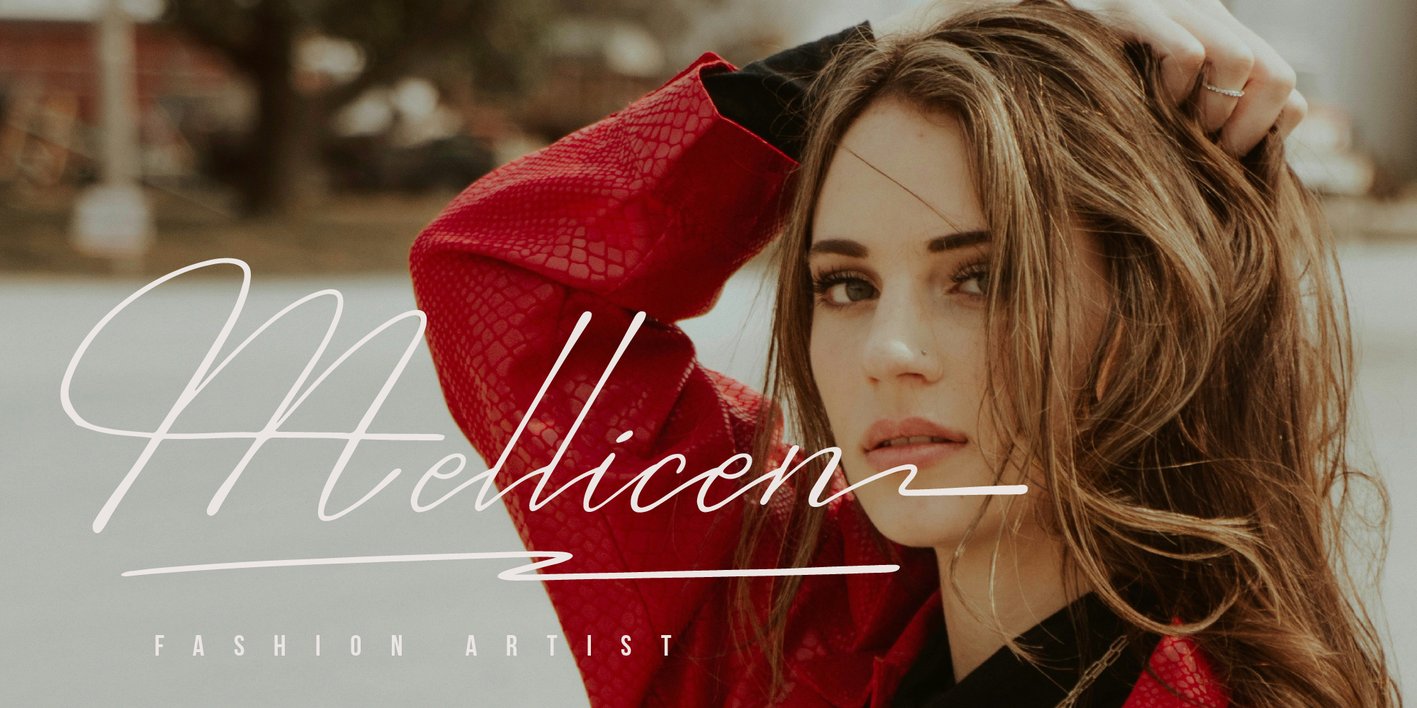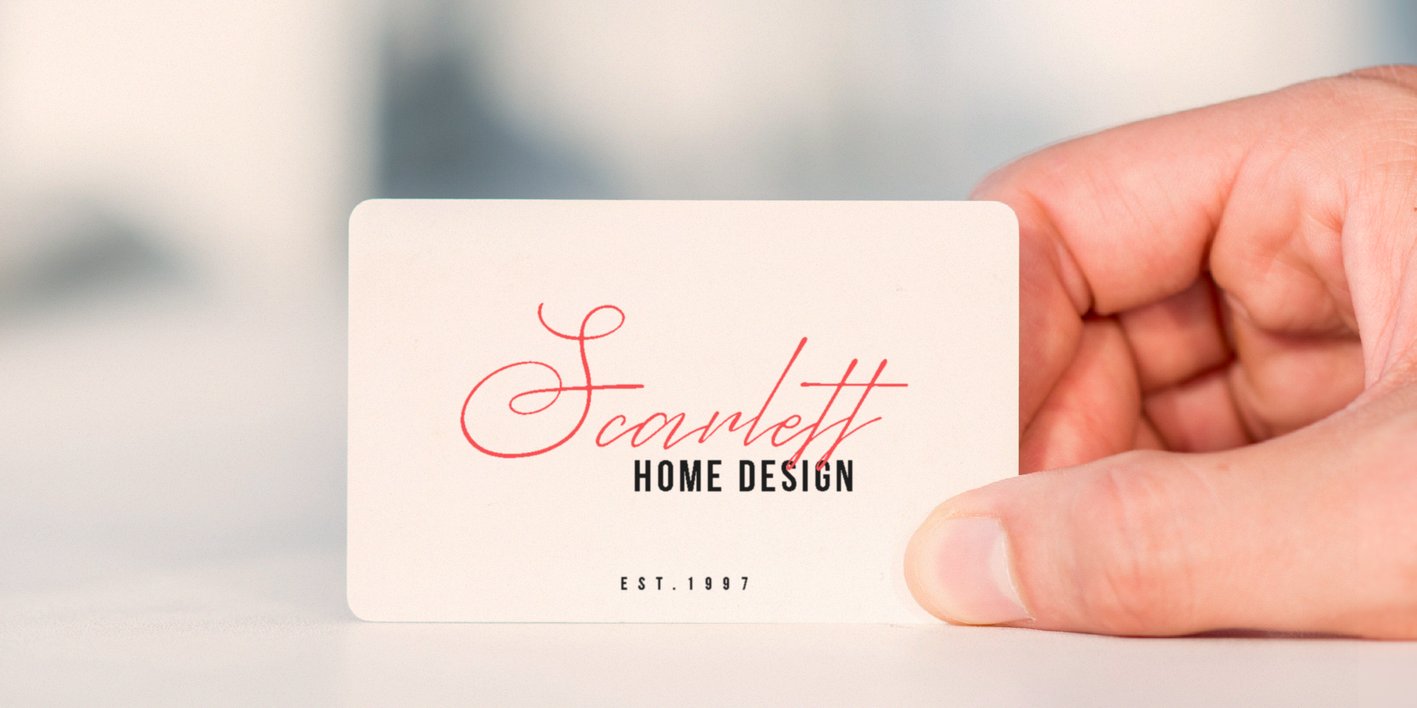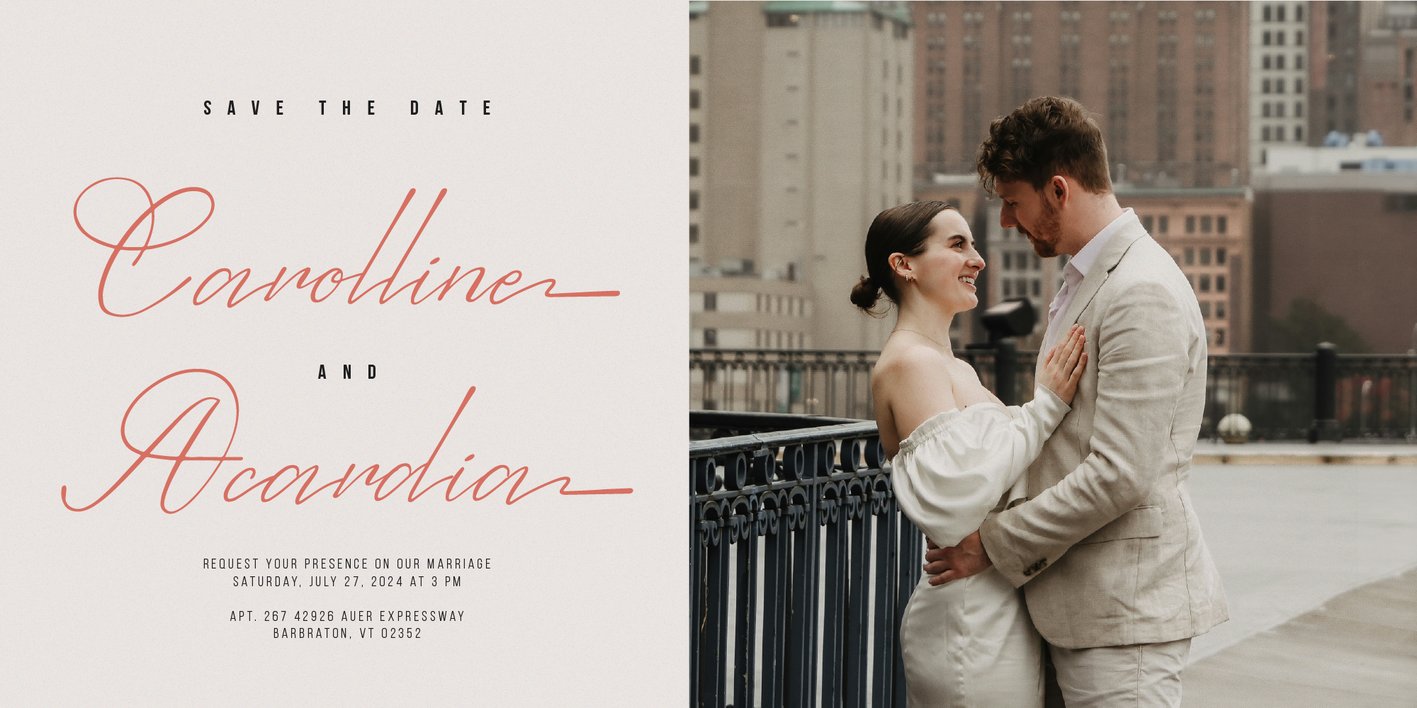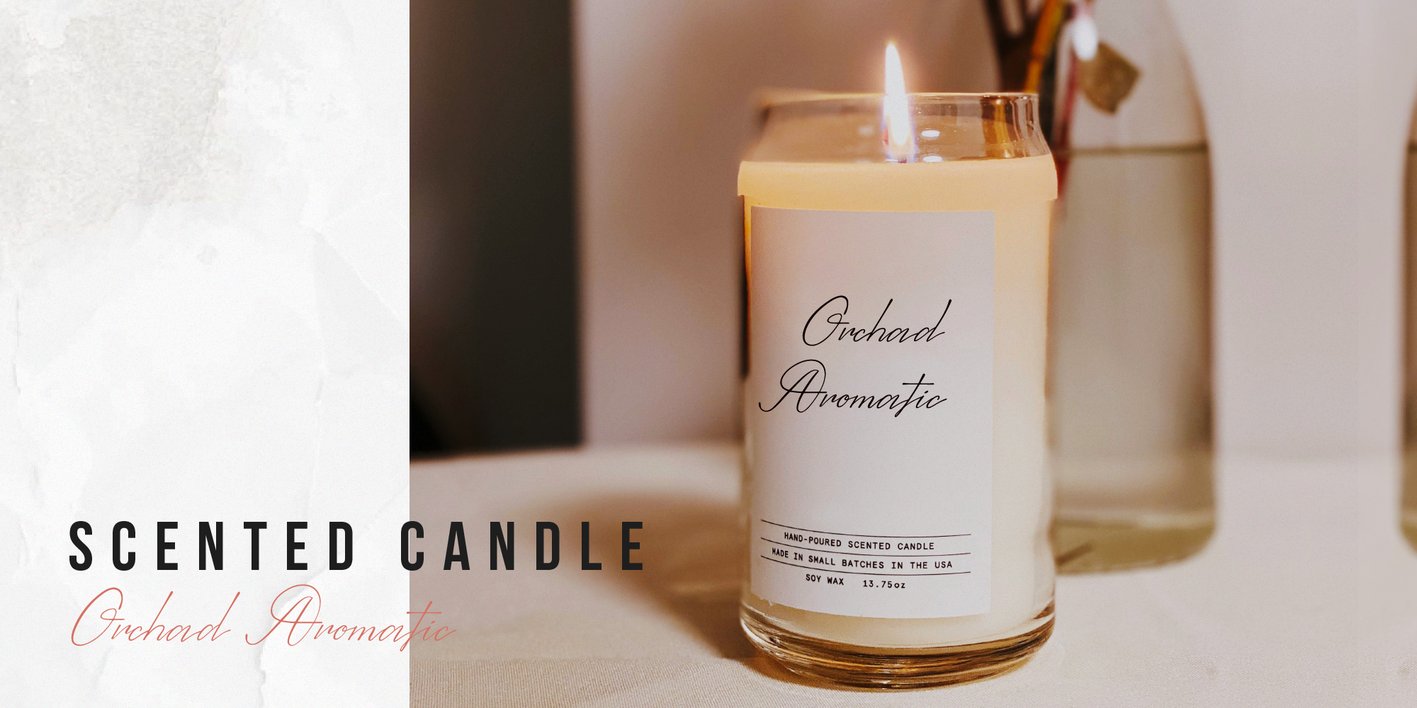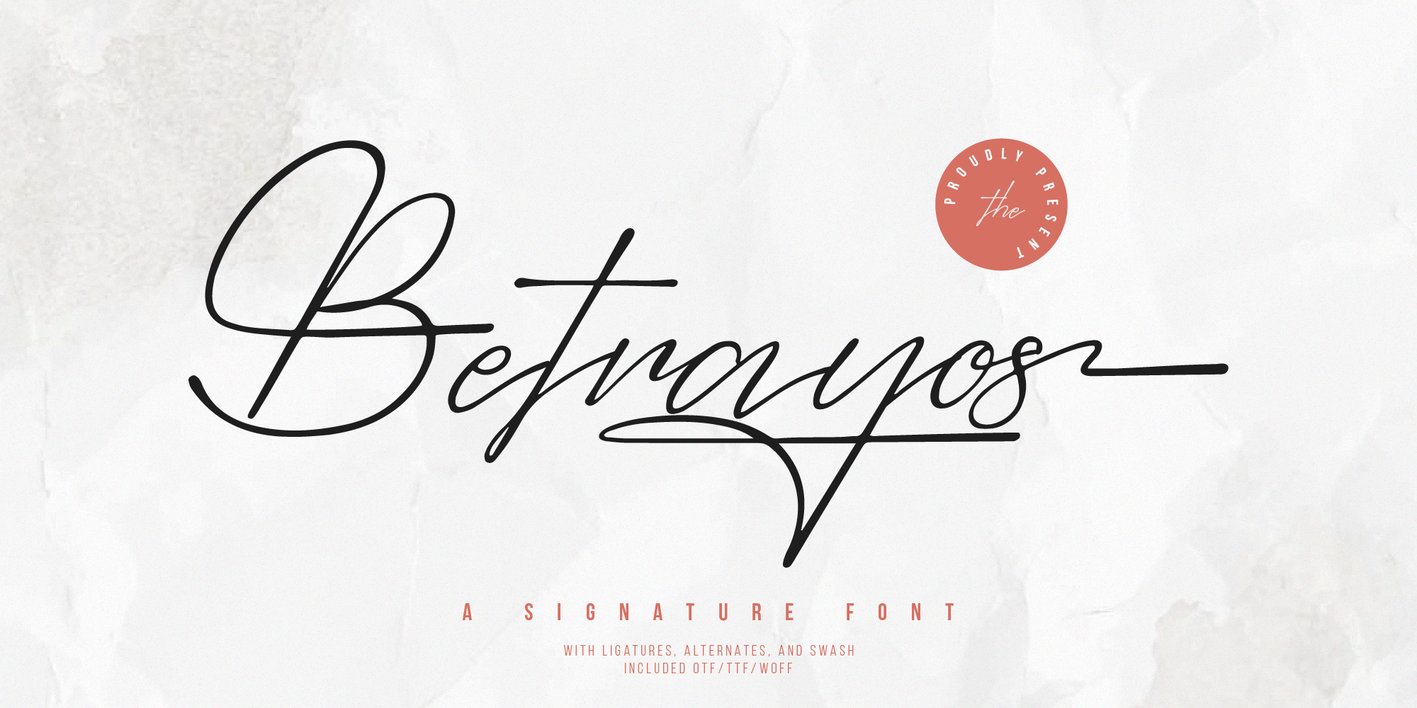
Betrayos Font
Betrayos | Signature Font, from Gracetypestudio, suitable for any projects such as: logos, branding projects, homeware designs, product packaging, mugs, quotes, posters, shopping bags, t-shirts, book covers, name card, invitation cards, greeting cards, label, photography, watermark, special events, and all your other lovely projects that need a Signature script taste.